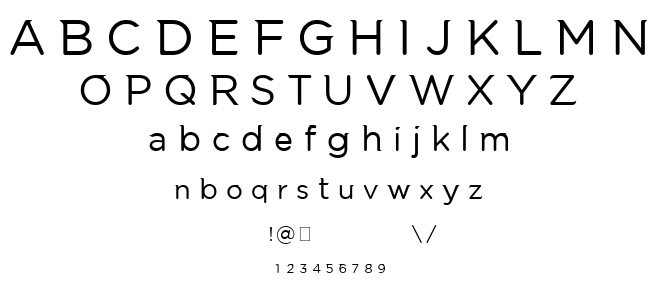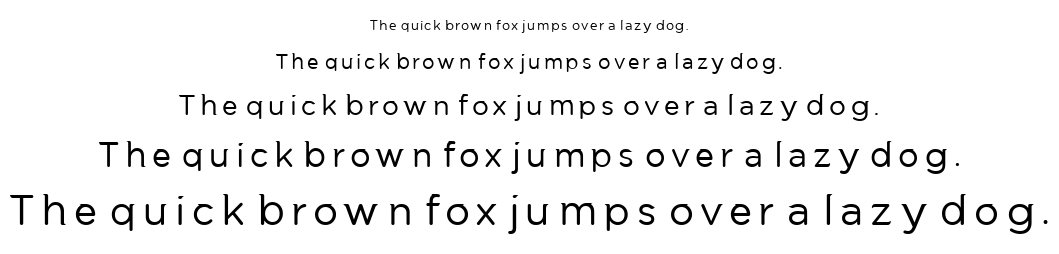
Home » Fancy » Various » Luctan Various Luctan whyroy August 5, 2015 10 Views 0 SaveSavedRemoved 0 Luctan Font luctan.ttf Free for personal use - 1 font file Download 1272 downloads Character Mapspecimen sheetwaterfallluctan.ttf A typeface inspired by Texas Longhorn.